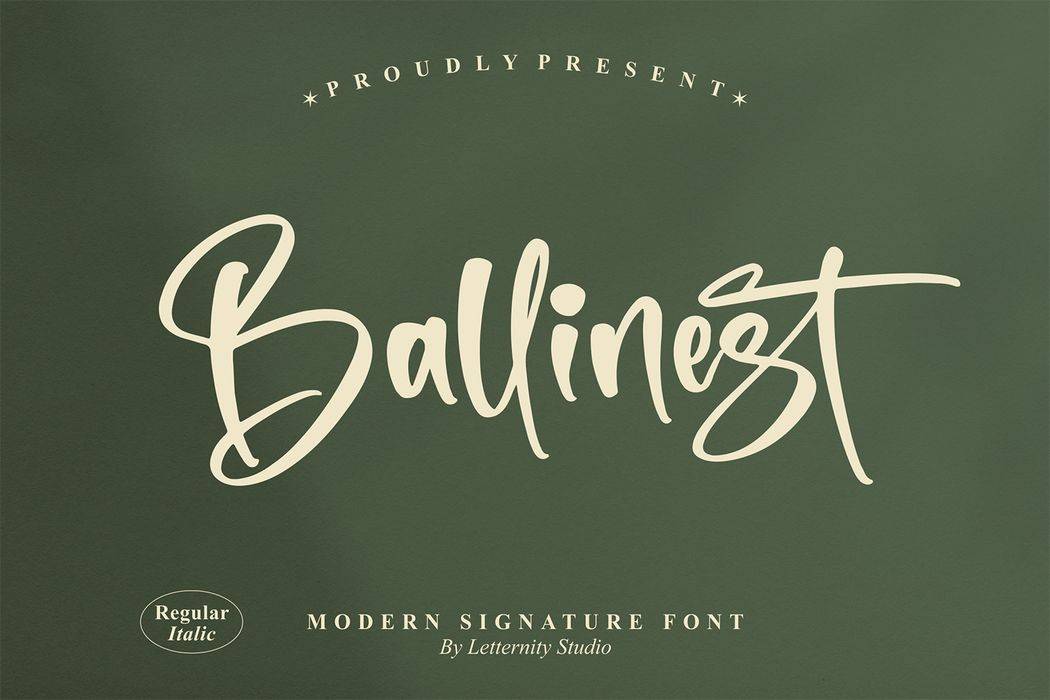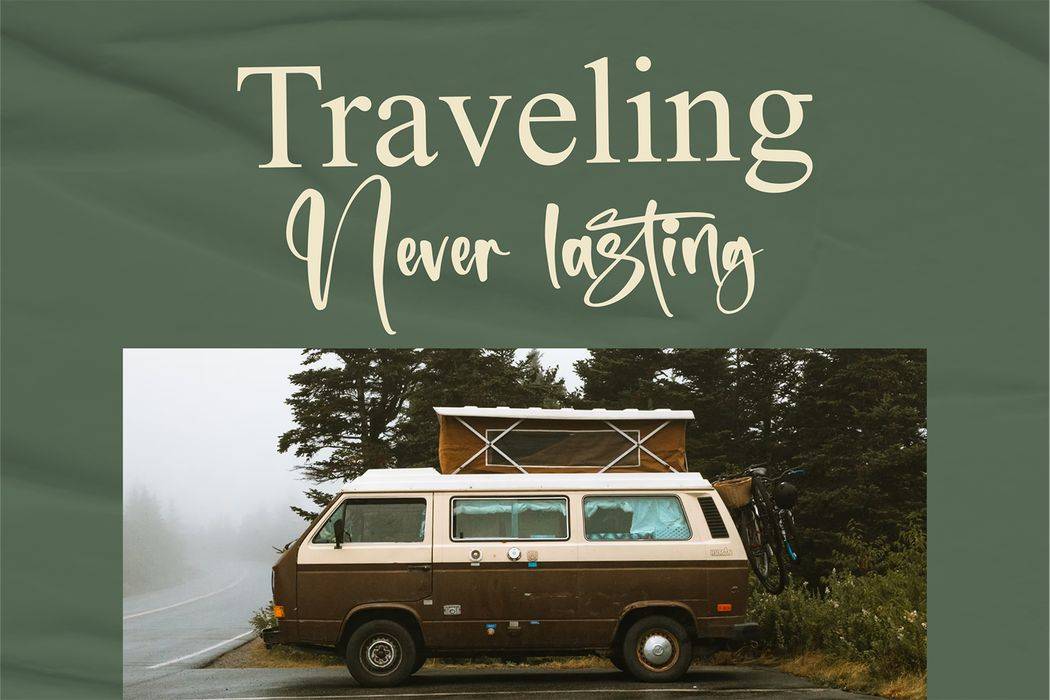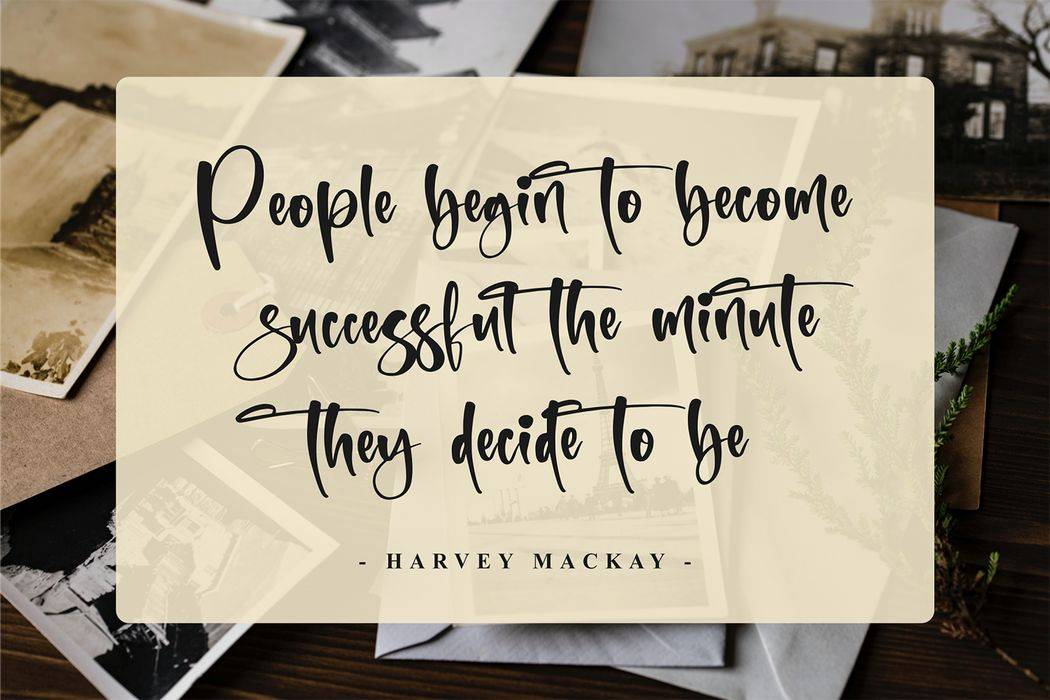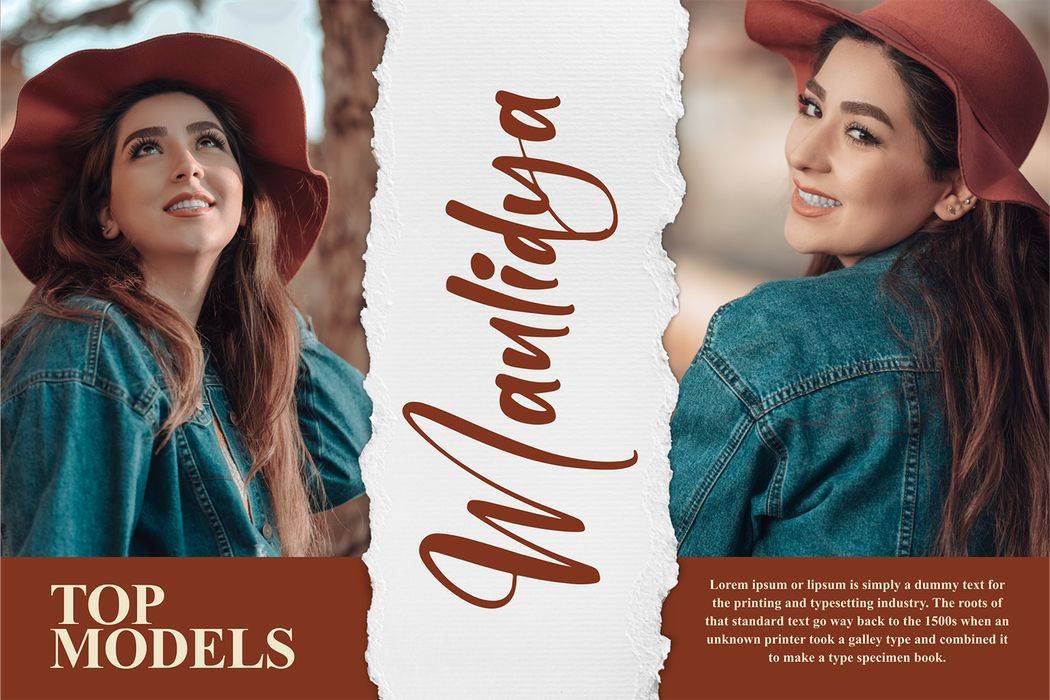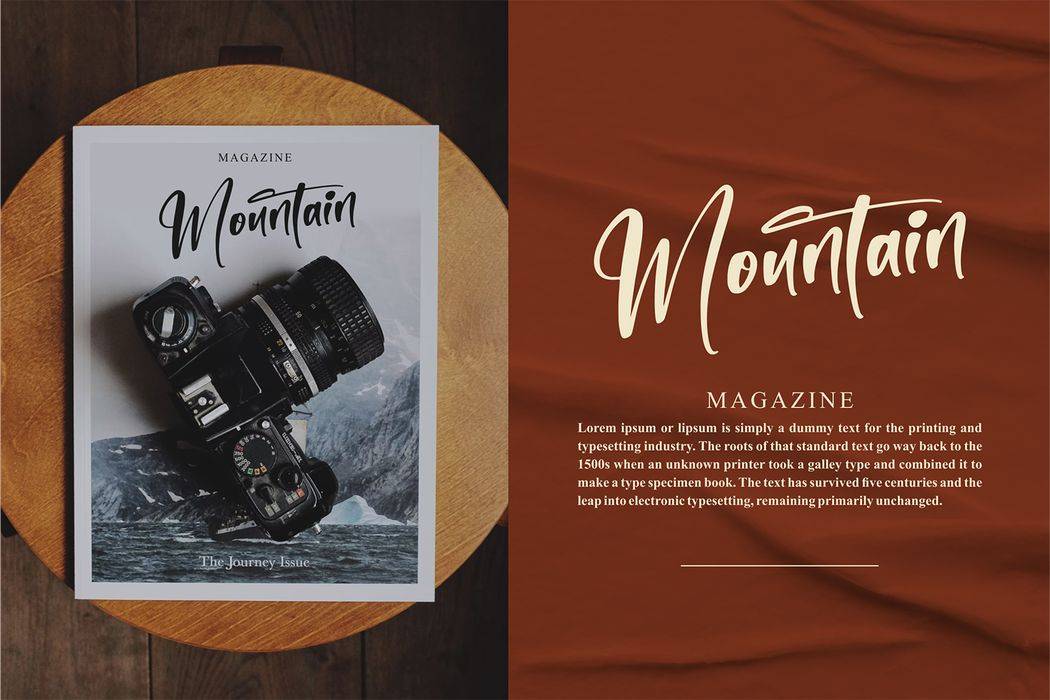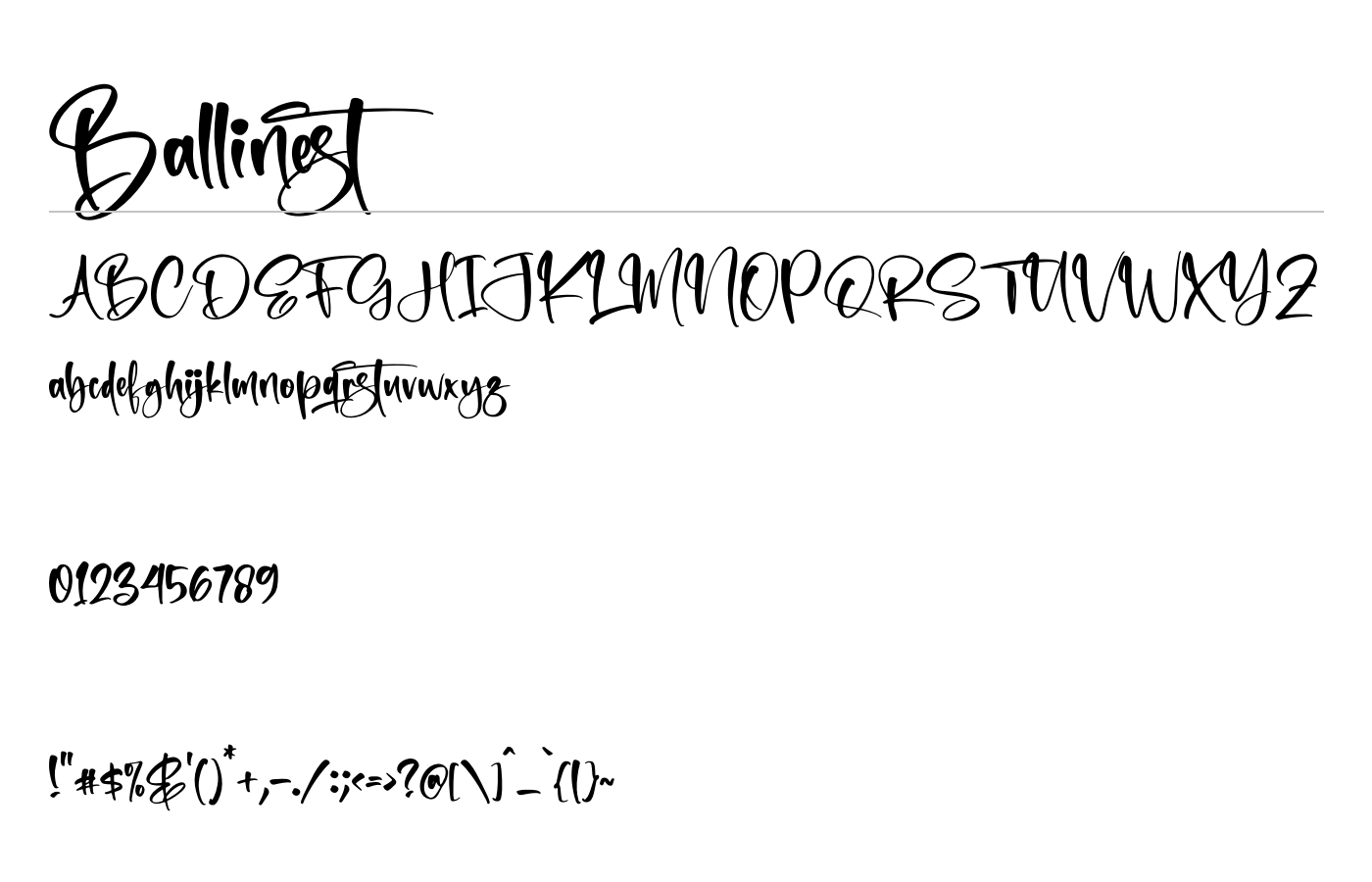
Ballinest is a lively and modern handwritten script font with a playful yet elegant feel. Its flowing, brush-like strokes and varying weights give it a dynamic, artistic character that works wonderfully for creative branding, invitations, and headline text where personality and flair are desired. This font is perfect for projects that want to convey a casual, personal touch with stylish sophistication.
Ballinest Font
About Ballinest Font